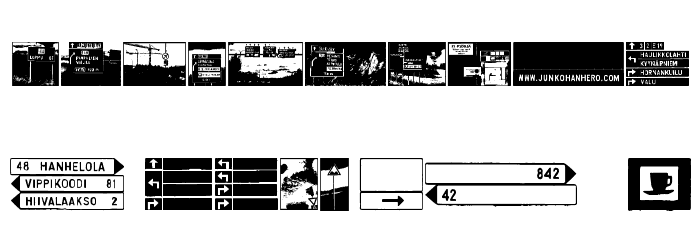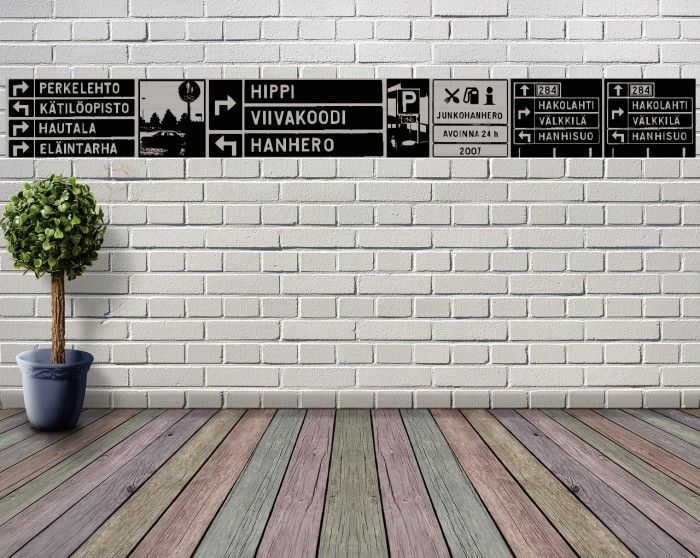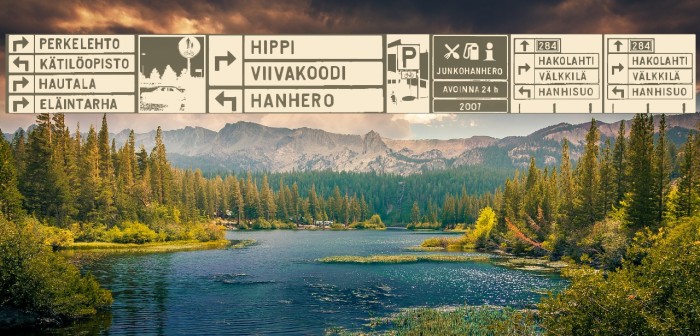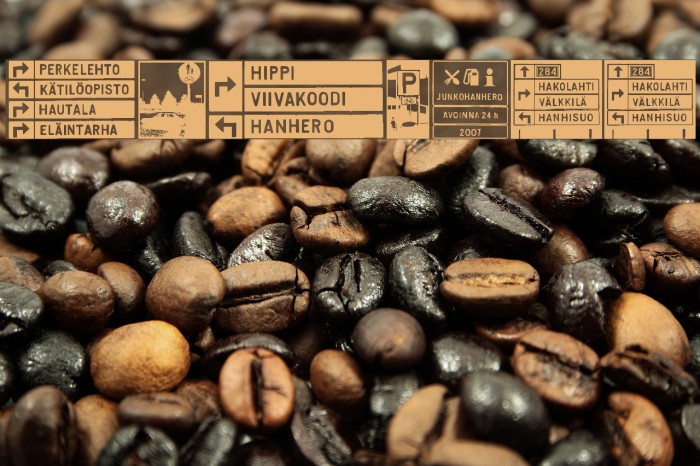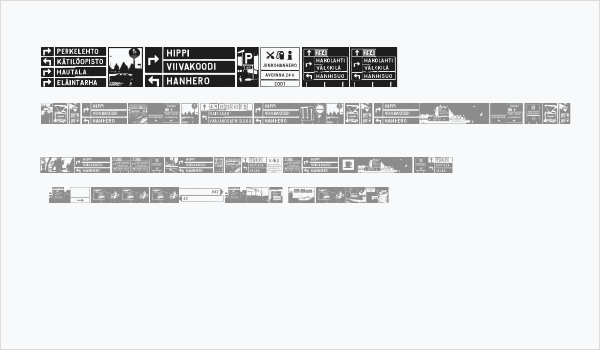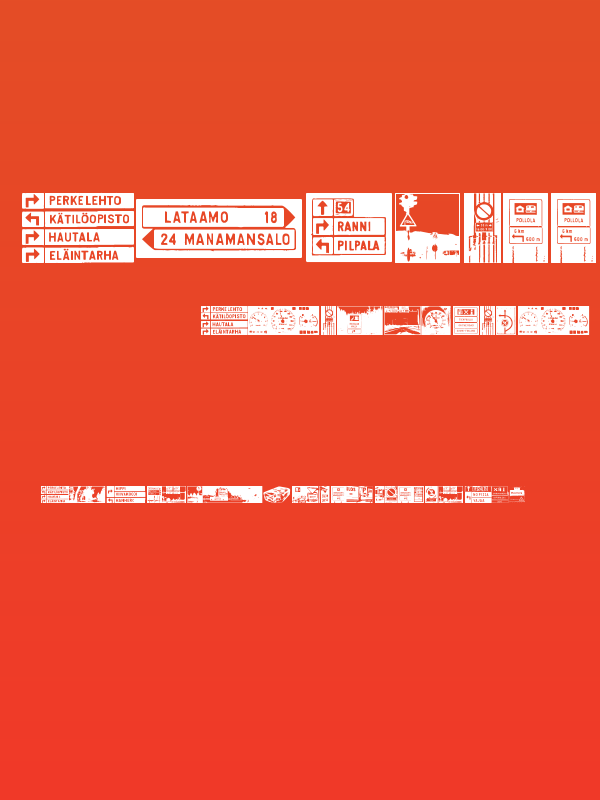
Tienpll Font
Tienpll Description
A utilitarian, highly legible sans-serif font with uniform stroke width, designed for maximum clarity and readability at a distance, commonly used on road and traffic signs. The characters are wide, with generous spacing and clear differentiation between letterforms and numerals.
| Overall Style | Functional, Modern |
| Use Case | Signage, Wayfinding, Public information |
| Proposed Projects | Road signage, wayfinding systems, transportation maps, public information displays. |